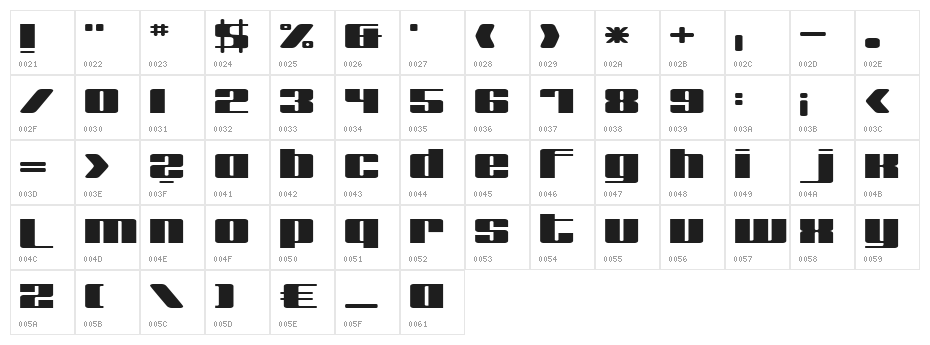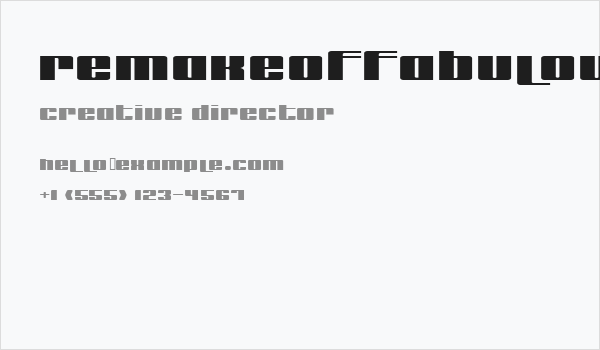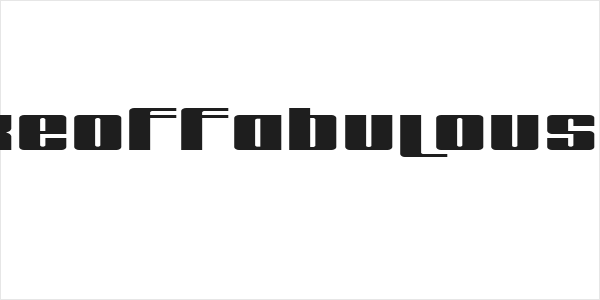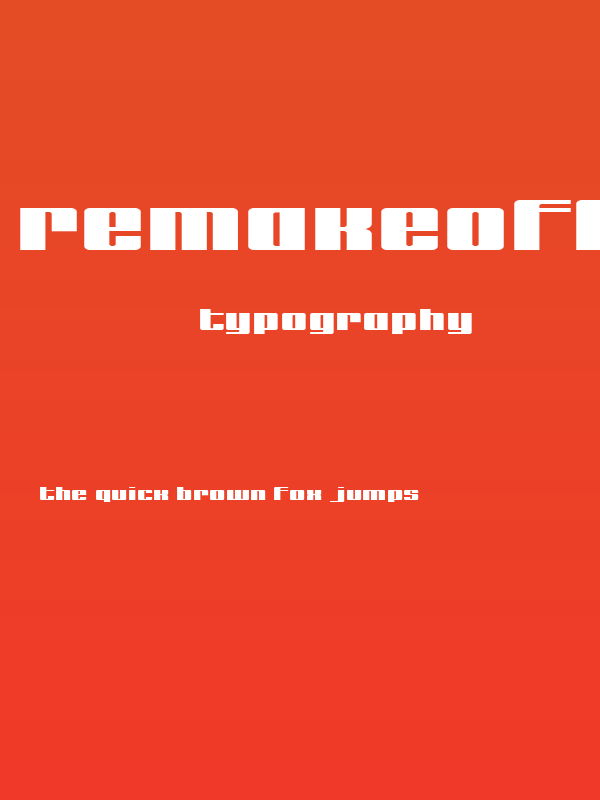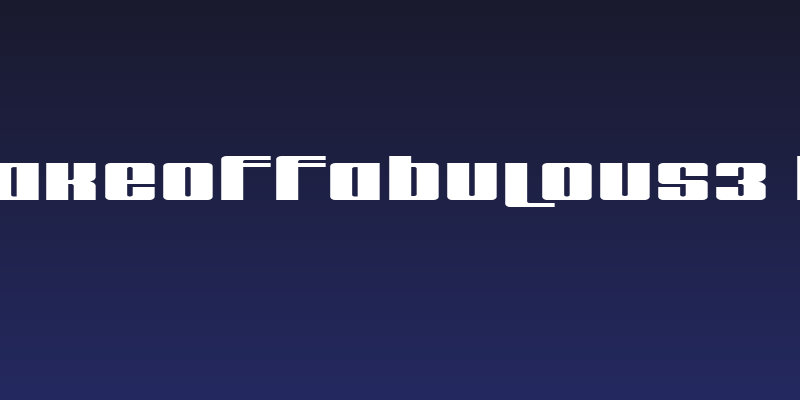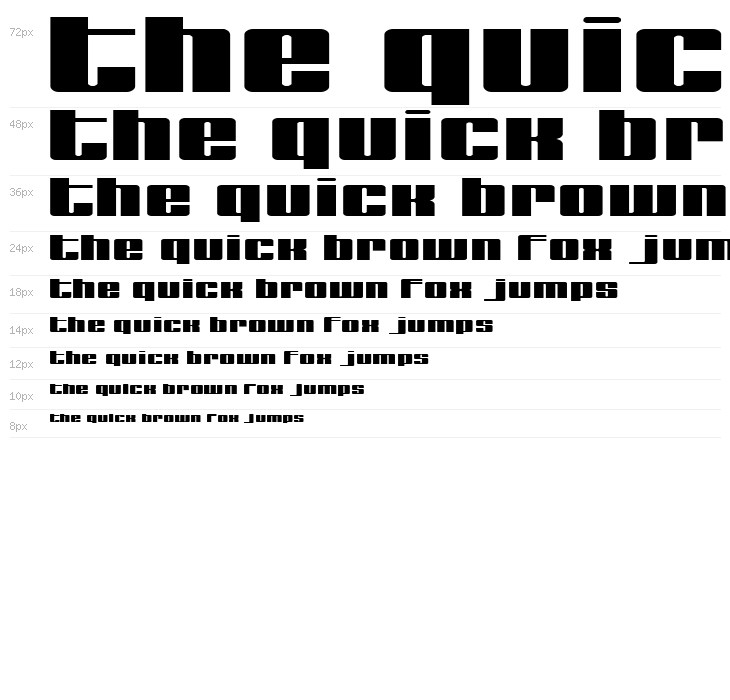
remakeoffabulous3 Bold Font
remakeoffabulous3 Bold Description
This bold and striking font features a modern, geometric design with a strong presence. The characters are blocky and robust, with a unique style that incorporates sharp angles and a uniform thickness throughout. The uppercase and lowercase letters maintain a consistent height, creating a cohesive look. The numbers and special characters follow the same bold, angular style, making them stand out. This font is ideal for making a statement and grabbing attention, with its high-impact design and contemporary feel.
| Proposed Projects | Ideal for posters, headlines, branding, and any project requiring a bold, modern aesthetic. |